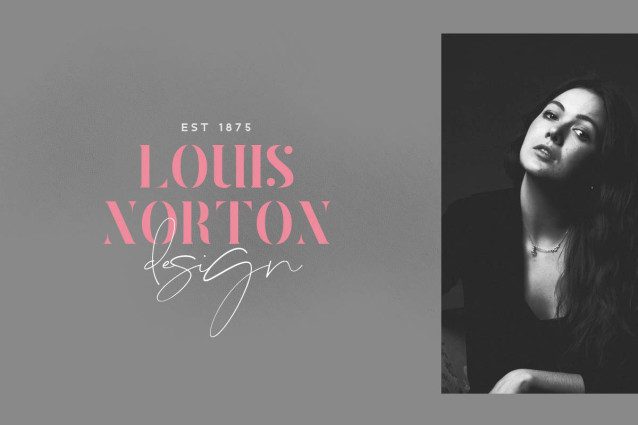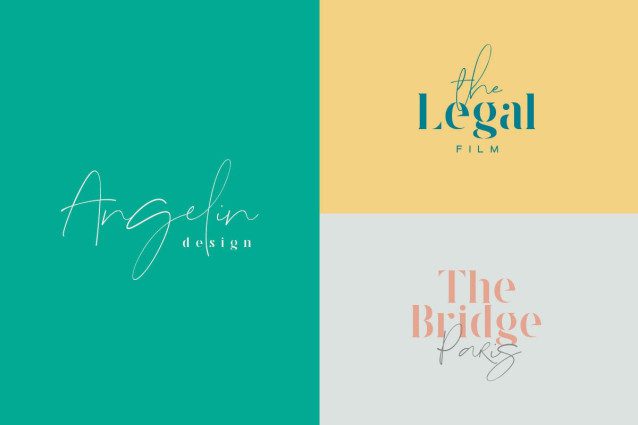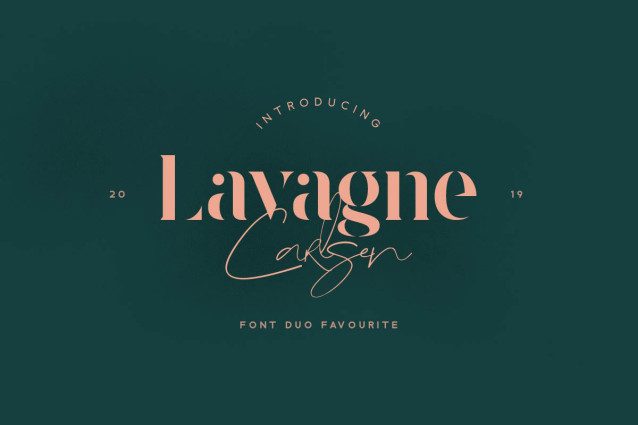
Lavagne Carlsen Font Duo
Lavagne Carlsen Font Duo is perfect font duo with two different character. Both fonts complete each other and works perfect together, make your text looks beautiful. With modern script style this font will perfect for many different project ex: Instagram post, signature logo, watermark, quote, blog header, poster, wedding, branding, logo, fashion, apparel, letter, invitation, stationery, etc.